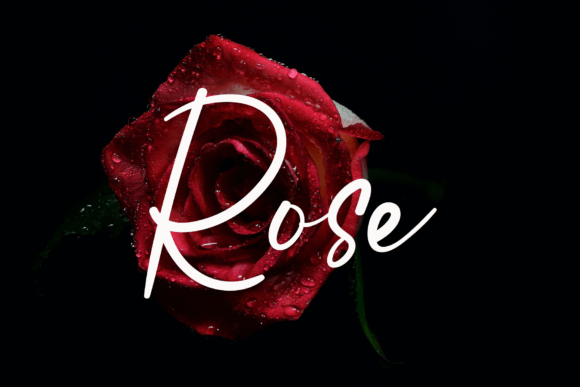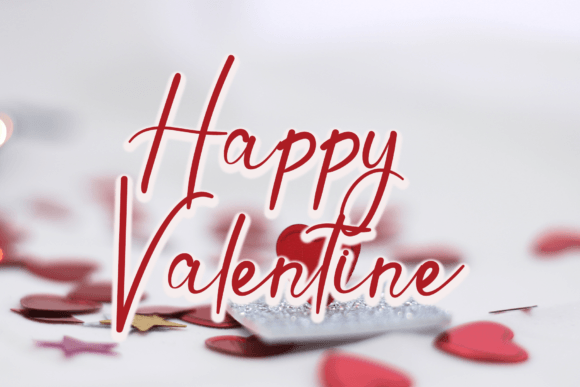
About Romantic Font Download
The Romantic Font Download is a sweet and beautiful handwritten script designed to add luxury and charm to any creative project. Featuring characters that dance along the baseline, this typeface creates an elegant flow that feels both unique and heartfelt. Whether used for invitations, logos, or posters, Romantic Font enhances designs with its graceful and stylish rhythm.
A Handwritten Script with Elegant Charm
Romantic captures the essence of classic handwritten calligraphy while keeping a modern appeal. Unlike generic fonts, this Romantic script font feels warm, stylish, and timeless, making it perfect for designs where elegance and readability matter. As a result, it adapts seamlessly across both personal and professional projects.
Special moments deserve meaningful typography. The Romantic Font is perfect for wedding invitations, thank you notes, greeting cards, and event stationery. Moreover, its beautiful dancing characters ensure that each piece feels both personal and memorable.
Branding and Logo Design with Romantic Font
Typography defines how audiences perceive a brand, and the Romantic handwritten font is ideal for boutique logos, product packaging, and promotional materials. In addition, its graceful strokes communicate luxury while remaining approachable.
Posters, Titles, and Creative Displays
The Romantic Font Download works wonderfully for posters, magazine titles, and banners. Therefore, it provides clarity in large-scale layouts while keeping a sophisticated handwritten feel.
In today’s digital landscape, fonts must stand out while staying legible. The Romantic typeface integrates smoothly into Instagram graphics, Pinterest designs, YouTube thumbnails, and blogs. Its sweet handwritten flow ensures digital projects feel polished and eye-catching.
Why Designers Choose Romantic Typeface
Designers value fonts that balance elegance with usability. Many handwritten scripts sacrifice readability for decoration, but the Romantic handwritten script maintains clarity while enhancing creativity. This makes it a reliable choice for professionals and hobbyists alike.
Add Sweet Elegance to Your Projects Today
If you want a handwritten script that feels beautiful, sweet, and versatile, the Romantic Font Download is the right choice. From invitations and logos to posters and social media, it enriches every design with charm and sophistication. Finally, download Romantic today and let your work shine with timeless handwritten beauty.